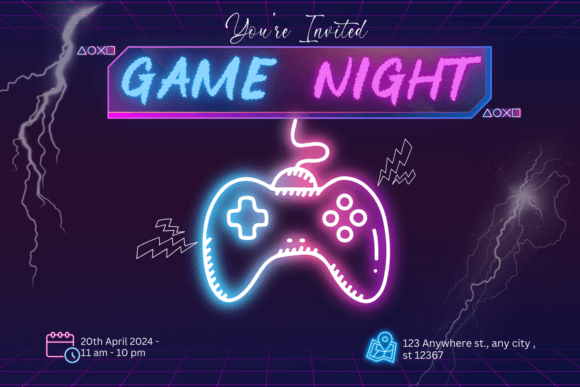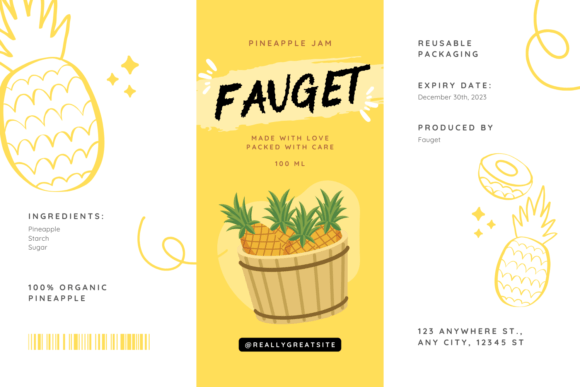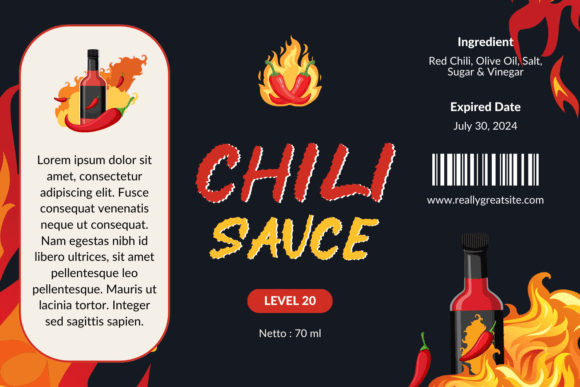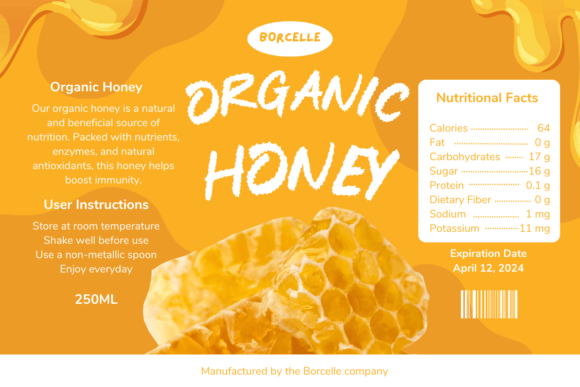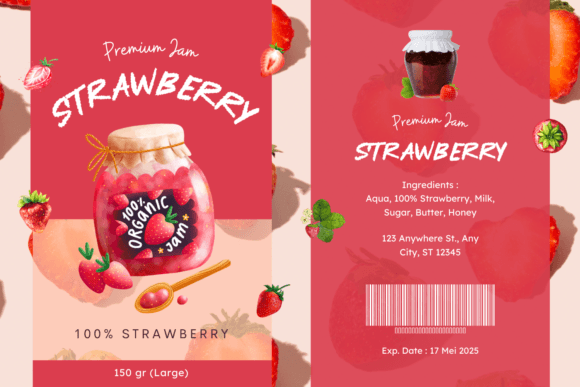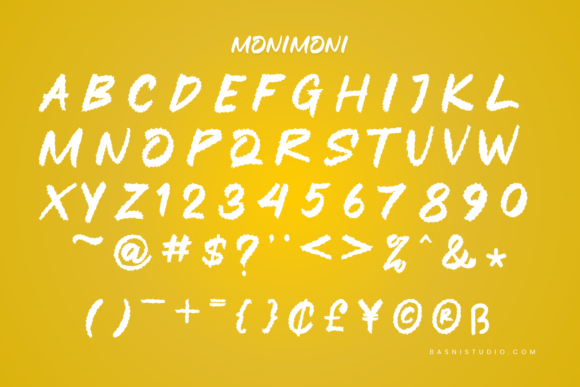
Introduction to Monimoni Font Font
Fonts play a crucial role in design, and the Monimoni Font font is a typeface that brings both character and versatility to any project. Whether you’re working on a branding project, a website, or a print design, the Monimoni Font font offers a unique style that can elevate your work.
MONIMONI is a bold and eye-catching font designed to stand out.
Its uppercase letters are strong and clear, perfect for making headlines or emphasizing text in designs Ideal for grabbing attention and making a statement.
Key Features of Monimoni Font Font
Why Choose Monimoni Font Font?
The Monimoni Font font is more than just a typeface – it’s a design tool that helps you communicate your message with style and clarity. Its unique character set and versatile design make it suitable for a wide range of applications, from elegant invitations to bold headlines.
With its carefully crafted letterforms and balanced proportions, the Monimoni Font font ensures readability and visual appeal across all mediums.
What makes Monimoni Font font special?
The Monimoni Font font stands out with its unique design, exceptional readability, and versatility across various design applications.